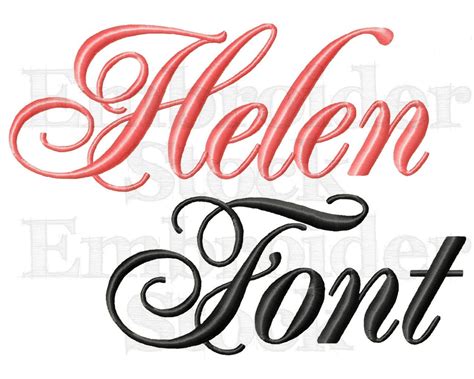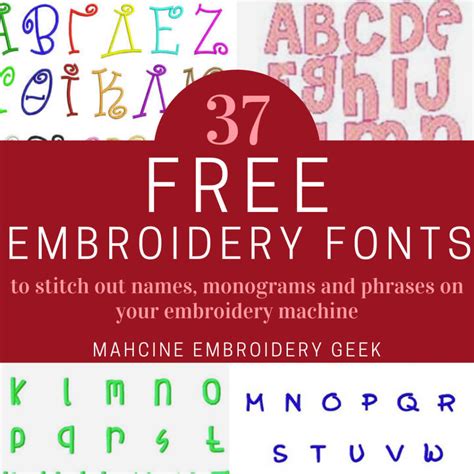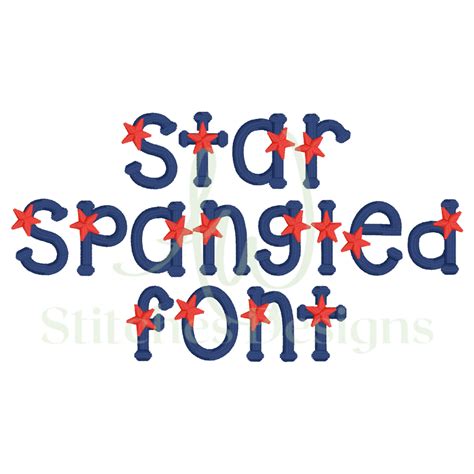
Embroidery has long been a cherished art form, allowing individuals to express their creativity through intricate designs and patterns. One of the most captivating aspects of embroidery is the use of Embroidery Font Designs, which add a personal touch to any project. Whether you're a seasoned embroiderer or just starting out, understanding the nuances of embroidery font designs can elevate your work to new heights.
Understanding Embroidery Font Designs
Embroidery font designs are essentially the alphabets and numerals that you can stitch onto fabric. These designs can range from simple and elegant to complex and ornate, depending on the style and technique you choose. The beauty of embroidery font designs lies in their versatility; they can be used to personalize gifts, create custom home decor, or even design unique clothing items.
Types of Embroidery Font Designs
There are several types of embroidery font designs, each with its own unique characteristics. Here are some of the most popular ones:
- Block Fonts: These are straightforward and easy to read, making them ideal for beginners. Block fonts typically have a uniform width and height, which makes them simple to stitch.
- Script Fonts: These fonts have a flowing, handwritten appearance. They are perfect for adding a touch of elegance to your embroidery projects but can be more challenging to stitch due to their intricate curves and loops.
- Cursive Fonts: Similar to script fonts, cursive fonts have a continuous flow but are generally more formal and structured. They are great for adding a classic touch to your embroidery.
- Monogram Fonts: These fonts are designed specifically for creating monograms, which are often used to personalize items. Monogram fonts can be simple or elaborate, depending on the design.
- Decorative Fonts: These fonts are highly ornate and often include additional design elements such as flowers, vines, or other embellishments. They are perfect for adding a festive or whimsical touch to your embroidery.
Choosing the Right Embroidery Font Design
Selecting the right embroidery font design depends on several factors, including the purpose of your project, your skill level, and the overall aesthetic you want to achieve. Here are some tips to help you choose the perfect font:
- Consider the Purpose: Think about what you want to achieve with your embroidery. For example, if you're creating a gift for a friend, a personal and elegant script font might be appropriate. If you're designing a label for a piece of clothing, a simple block font might be more suitable.
- Assess Your Skill Level: If you're new to embroidery, start with simpler fonts like block or cursive. As your skills improve, you can gradually move on to more complex designs.
- Match the Aesthetic: Ensure that the font you choose complements the overall design of your project. For example, a delicate script font might look out of place on a bold, geometric design.
Creating Your Own Embroidery Font Designs
While there are many pre-designed embroidery fonts available, creating your own can add a unique and personal touch to your projects. Here are the steps to create your own embroidery font designs:
- Sketch Your Design: Start by sketching your font design on paper. This will give you a visual reference to work from and allow you to make any necessary adjustments before you begin stitching.
- Choose Your Fabric and Thread: Select a fabric and thread that complement your design. Consider the color and texture of the fabric, as well as the thickness and color of the thread.
- Transfer the Design: Use a lightbox or tracing paper to transfer your design onto the fabric. Make sure the design is accurately placed and properly aligned.
- Stitch the Design: Begin stitching your design using the chosen embroidery technique. Take your time and be patient, as creating a custom font design can be time-consuming.
π Note: When creating your own embroidery font designs, it's important to practice on scrap fabric first. This will help you get a feel for the stitching technique and make any necessary adjustments before working on your final project.
Popular Embroidery Techniques for Font Designs
There are several embroidery techniques that are particularly well-suited for creating font designs. Here are some of the most popular ones:
- Backstitch: This technique involves stitching along the outline of the design and then returning to fill in the gaps. It's great for creating clean, precise lines and is ideal for block and cursive fonts.
- Satin Stitch: This technique involves filling in the design with closely spaced parallel stitches. It's perfect for creating smooth, solid areas of color and is often used for script and decorative fonts.
- Chain Stitch: This technique involves creating a series of loops that are connected to form a chain. It's great for adding texture and dimension to your font designs and is often used for script and cursive fonts.
- French Knot: This technique involves wrapping the thread around the needle and pulling it through the fabric to create a small knot. It's perfect for adding decorative elements to your font designs and is often used in decorative fonts.
Embroidery Font Designs for Different Projects
Embroidery font designs can be used in a variety of projects, from home decor to fashion accessories. Here are some ideas for incorporating embroidery font designs into your projects:
- Home Decor: Use embroidery font designs to personalize home decor items such as pillows, curtains, and wall hangings. For example, you could embroider a favorite quote or a family name onto a pillowcase.
- Clothing and Accessories: Add a personal touch to clothing and accessories by embroidering names, initials, or meaningful phrases. For example, you could embroider a monogram onto a denim jacket or a favorite phrase onto a tote bag.
- Gifts: Create personalized gifts by embroidering names, dates, or special messages onto items such as towels, aprons, or handkerchiefs. For example, you could embroider a friend's name onto a custom-made apron.
Embroidery Font Designs for Beginners
If you're new to embroidery, starting with simple font designs can help you build your skills and confidence. Here are some tips for beginners:
- Start with Basic Stitches: Begin with basic stitches such as the backstitch and satin stitch. These stitches are easy to learn and can be used to create a variety of font designs.
- Choose Simple Fonts: Opt for simple fonts like block or cursive. These fonts have fewer details and are easier to stitch.
- Practice on Scrap Fabric: Before working on your final project, practice your stitches on scrap fabric. This will help you get a feel for the technique and make any necessary adjustments.
π Note: Don't be afraid to make mistakes. Embroidery is a skill that improves with practice, so keep trying and don't get discouraged if your first attempts aren't perfect.
Advanced Embroidery Font Designs
Once you've mastered the basics, you can explore more advanced embroidery font designs. Here are some techniques and tips for taking your skills to the next level:
- Experiment with Different Stitches: Try out more complex stitches such as the chain stitch, French knot, and stem stitch. These stitches can add texture and dimension to your font designs.
- Use Multiple Colors: Incorporate multiple colors into your designs to create a more vibrant and eye-catching effect. For example, you could use different shades of the same color to create a gradient effect.
- Add Embellishments: Enhance your font designs with additional embellishments such as beads, sequins, or ribbons. These elements can add a touch of elegance and sophistication to your projects.
Embroidery Font Designs for Special Occasions
Embroidery font designs are perfect for creating personalized items for special occasions. Here are some ideas for incorporating embroidery font designs into your special occasion projects:
- Weddings: Create custom embroidered items for weddings, such as monogrammed napkins, personalized handkerchiefs, or embroidered wedding favors. For example, you could embroider the couple's initials onto a set of custom-made napkins.
- Birthdays: Design personalized gifts for birthdays, such as embroidered t-shirts, tote bags, or pillows. For example, you could embroider a birthday message onto a custom-made tote bag.
- Holidays: Use embroidery font designs to create festive items for holidays, such as Christmas stockings, Easter baskets, or Halloween decorations. For example, you could embroider a holiday greeting onto a custom-made stocking.
Embroidery Font Designs for Personalization
One of the most rewarding aspects of embroidery is the ability to personalize items with Embroidery Font Designs. Whether you're creating a gift for a loved one or adding a personal touch to your own belongings, embroidery font designs allow you to express your creativity and individuality. Here are some ideas for personalizing items with embroidery font designs:
- Names and Initials: Embroider names or initials onto items such as towels, robes, or clothing. This is a great way to add a personal touch to everyday items.
- Special Dates: Embroider significant dates, such as birthdays or anniversaries, onto items like photo frames, journals, or home decor.
- Meaningful Phrases: Add meaningful phrases or quotes to items such as pillows, wall hangings, or clothing. This can make the item more special and personal.
π Note: When personalizing items, consider the recipient's preferences and the occasion. Choose a font design that reflects their personality and the significance of the item.
Embroidery Font Designs for Different Fabrics
Embroidery font designs can be stitched onto a variety of fabrics, each with its own unique characteristics. Here are some tips for working with different fabrics:
- Cotton: Cotton is a versatile and easy-to-work-with fabric. It's great for beginners and can be used for a wide range of projects. Choose a high-quality cotton fabric for the best results.
- Linen: Linen has a natural, textured appearance and is perfect for creating rustic or vintage-inspired designs. It can be a bit more challenging to work with than cotton, so take your time and be patient.
- Silk: Silk is a luxurious fabric that adds a touch of elegance to any project. It's delicate and requires careful handling, so use a fine needle and thread.
- Denim: Denim is a sturdy fabric that's great for creating durable, long-lasting items. It can be a bit thicker and more challenging to stitch through, so use a strong needle and thread.
Embroidery Font Designs for Different Threads
Choosing the right thread is essential for creating beautiful embroidery font designs. Here are some popular thread types and their uses:
- Embroidery Floss: Embroidery floss is a versatile and widely used thread. It comes in a variety of colors and can be used for a wide range of projects. It's great for both beginners and experienced embroiderers.
- Perle Cotton: Perle cotton is a thicker, more textured thread that's perfect for creating bold, eye-catching designs. It's great for adding dimension and texture to your font designs.
- Metallic Thread: Metallic thread adds a touch of sparkle and elegance to your embroidery. It's perfect for creating festive or special occasion designs but can be more challenging to work with.
- Silk Thread: Silk thread is a luxurious option that adds a smooth, elegant finish to your embroidery. It's perfect for creating delicate, intricate designs but requires careful handling.
Embroidery Font Designs for Different Styles
Embroidery font designs can be adapted to suit a variety of styles, from modern and minimalist to traditional and ornate. Here are some style ideas to inspire your next project:
- Modern: Use clean, simple fonts and minimal embellishments for a modern look. Opt for neutral colors and geometric patterns to create a sleek, contemporary design.
- Vintage: Incorporate vintage-inspired fonts and embellishments for a nostalgic feel. Use muted colors and delicate stitches to create a timeless, classic design.
- Bohemian: Add a bohemian touch with flowing, script fonts and intricate embellishments. Use vibrant colors and natural materials to create a whimsical, eclectic design.
- Minimalist: Keep it simple with clean, minimalist fonts and a limited color palette. Focus on the quality of the stitches and the overall design for a sophisticated, understated look.
Embroidery Font Designs for Different Occasions
Embroidery font designs can be tailored to suit different occasions, making them a versatile choice for a wide range of projects. Here are some ideas for incorporating embroidery font designs into your occasion-specific projects:
- Weddings: Create elegant and personalized items for weddings, such as monogrammed napkins, personalized handkerchiefs, or embroidered wedding favors. Use delicate fonts and embellishments to create a romantic, timeless look.
- Birthdays: Design personalized gifts for birthdays, such as embroidered t-shirts, tote bags, or pillows. Use playful fonts and vibrant colors to create a fun, festive design.
- Holidays: Use embroidery font designs to create festive items for holidays, such as Christmas stockings, Easter baskets, or Halloween decorations. Incorporate holiday-themed fonts and embellishments to create a seasonal look.
Embroidery Font Designs for Different Ages
Embroidery font designs can be adapted to suit different age groups, making them a versatile choice for a wide range of projects. Here are some ideas for incorporating embroidery font designs into your age-specific projects:
- Children: Use playful, whimsical fonts and bright colors to create designs that appeal to children. Incorporate fun themes and characters to make the design more engaging.
- Teens: Opt for trendy, modern fonts and a limited color palette for a sophisticated, youthful look. Use popular themes and motifs to create a design that resonates with teens.
- Adults: Choose elegant, timeless fonts and a neutral color palette for a classic, sophisticated look. Incorporate meaningful phrases or quotes to create a personal, thoughtful design.
Embroidery Font Designs for Different Genders
Embroidery font designs can be tailored to suit different genders, making them a versatile choice for a wide range of projects. Here are some ideas for incorporating embroidery font designs into your gender-specific projects:
- For Her: Use delicate, feminine fonts and soft colors to create designs that appeal to women. Incorporate floral or lace embellishments to add a touch of elegance.
- For Him: Opt for bold, masculine fonts and a neutral color palette for a rugged, masculine look. Use geometric patterns and sturdy stitches to create a durable, long-lasting design.
- Unisex: Choose versatile, gender-neutral fonts and a balanced color palette for a design that appeals to everyone. Incorporate simple, clean lines and minimal embellishments for a timeless, classic look.
Embroidery Font Designs for Different Seasons
Embroidery font designs can be adapted to suit different seasons, making them a versatile choice for a wide range of projects. Here are some ideas for incorporating embroidery font designs into your season-specific projects:
- Spring: Use bright, pastel colors and floral motifs to create a fresh, spring-inspired design. Opt for delicate, flowing fonts to add a touch of elegance.
- Summer: Incorporate vibrant, bold colors and playful fonts to create a fun, summery look. Use beach or tropical themes to add a festive touch.
- Fall: Choose warm, earthy colors and rustic fonts to create a cozy, autumn-inspired design. Incorporate fall-themed motifs such as leaves or pumpkins.
- Winter: Use cool, icy colors and elegant fonts to create a winter wonderland look. Add snowflake or holiday-themed embellishments for a festive touch.
Embroidery Font Designs for Different Cultures
Embroidery font designs can be adapted to reflect different cultural influences, making them a versatile choice for a wide range of projects. Here are some ideas for incorporating embroidery font designs into your culturally inspired projects:
- Japanese: Use traditional Japanese fonts and motifs, such as cherry blossoms or koi fish, to create a design that reflects Japanese culture. Opt for delicate, intricate stitches and a neutral color palette.
- Indian: Incorporate vibrant colors and intricate patterns inspired by Indian textiles. Use bold, ornate fonts and embellishments such as beads or sequins to create a rich, luxurious